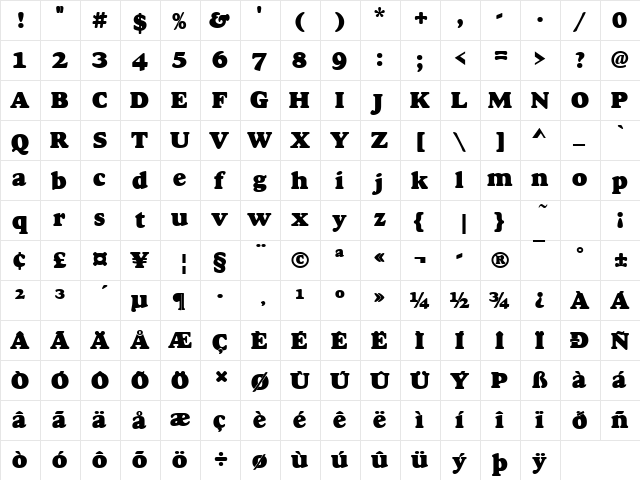
Goudy Becker Heavyface Poster Regular
Design Context for Goudy Becker Heavyface Poster Typeface
Goudy Becker Heavyface Poster takes a measured approach to typography — its balanced proportions and neutral character make it a reliable workhorse for both digital and print work.
Pro Tip: Pair Goudy Becker Heavyface Poster with a font of contrasting weight or personality to build a more expressive typographic hierarchy.